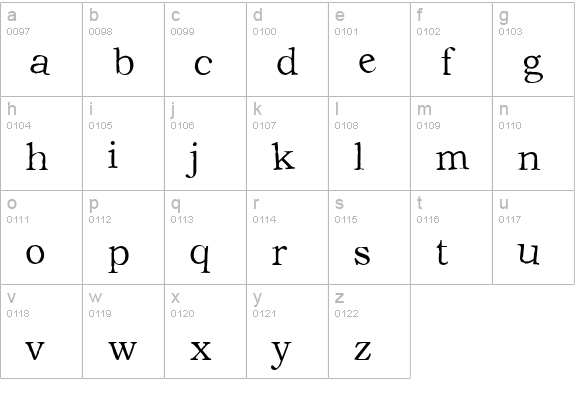
CK Newsprint Font Details
CK Newsprint is a classic and versatile font that is perfect for giving your projects a timeless and professional look. This font features a clean and elegant design that is easy to read, making it ideal for both print and digital media. The subtle newsprint texture adds a touch of character and authenticity to your text. Best of all, CK Newsprint is completely free to download at FontsMarket.com. Whether you're designing a newsletter, magazine, or website, this font is sure to elevate your content and make it stand out. Don't miss out on the opportunity to enhance your work with this stylish and sophisticated typeface. Download CK Newsprint today and take your designs to the next level!